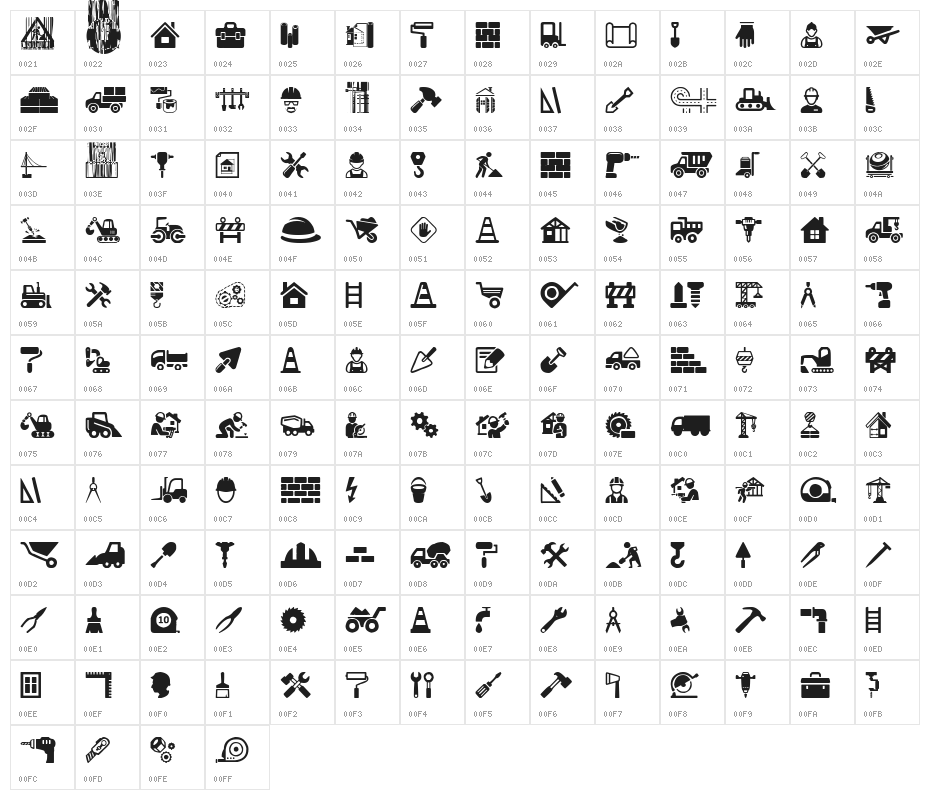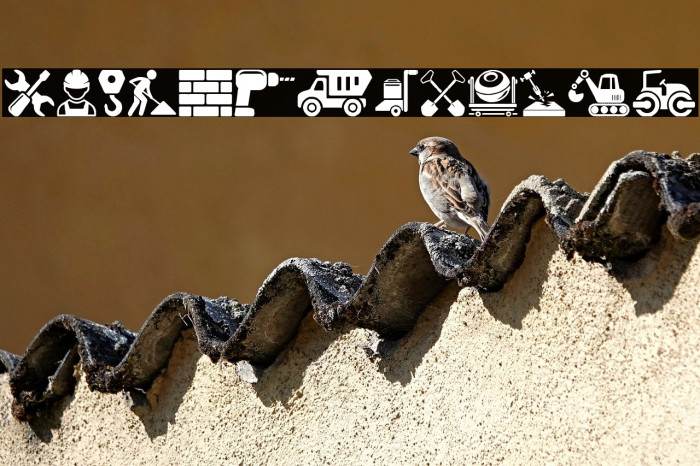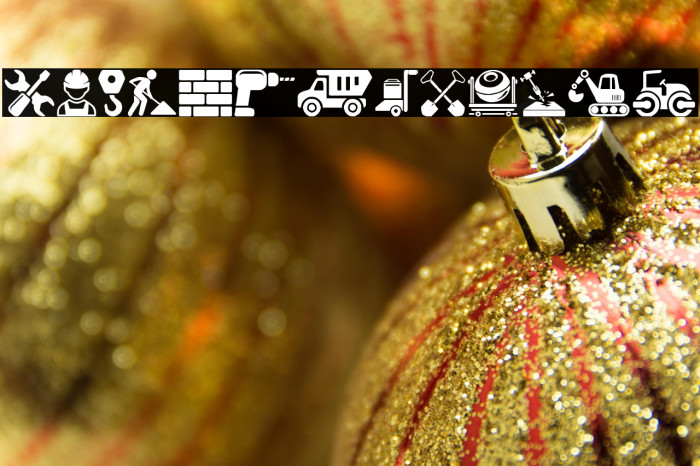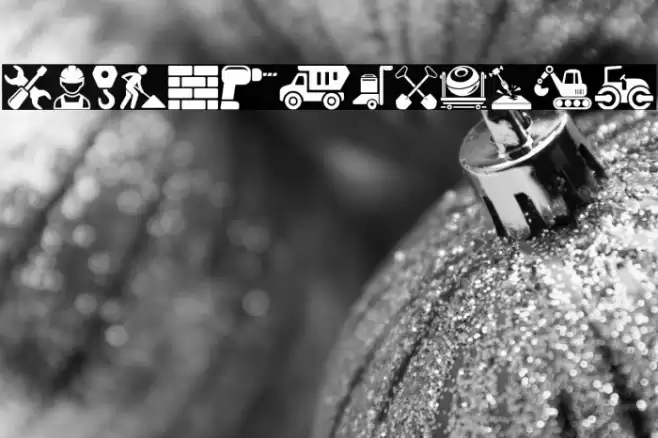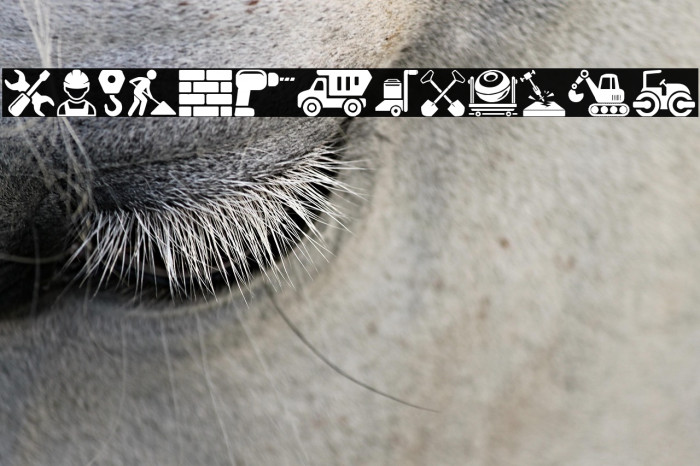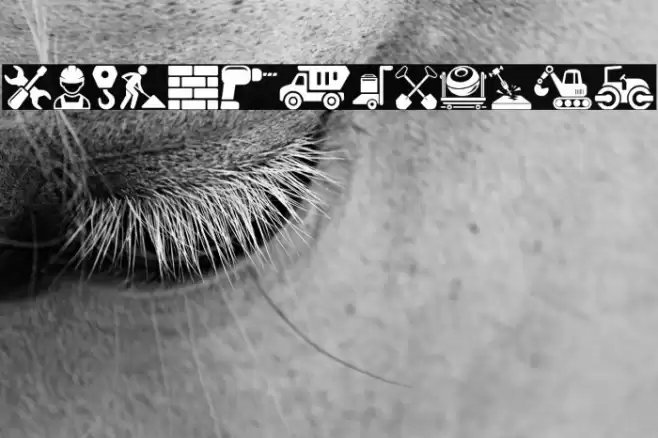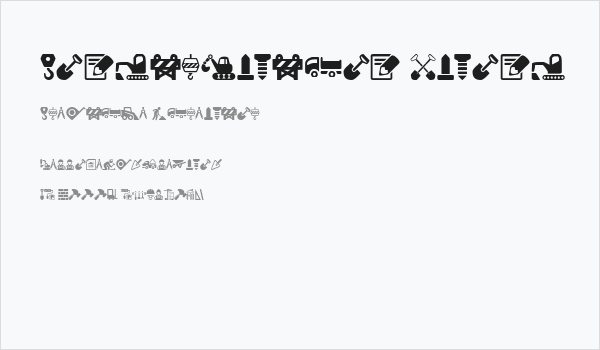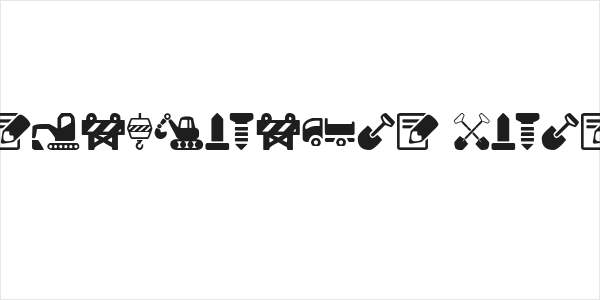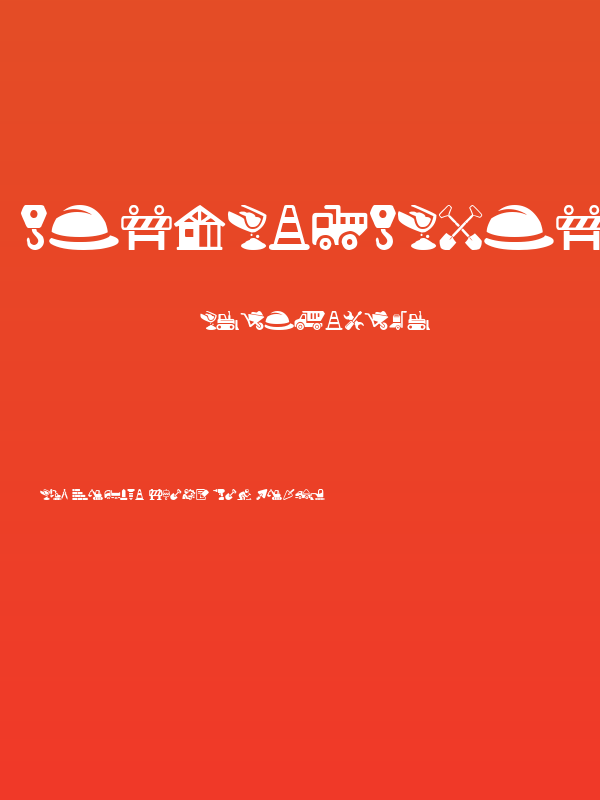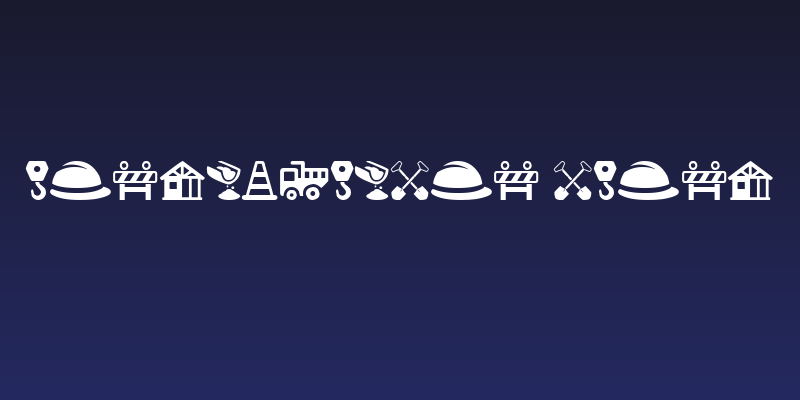
Construction Icons Font
Construction Icons Description
A collection of bold, high-contrast construction-themed pictograms and icons, including tools, vehicles, workers, safety equipment, and building elements, all rendered in a consistent, simplified silhouette style.
Overall StyleModern, Decorative
Use CaseIcons, Signage, Infographics, Branding
Proposed ProjectsInfographics, signage, instructional materials, safety posters, web/app UI, branding for construction companies.